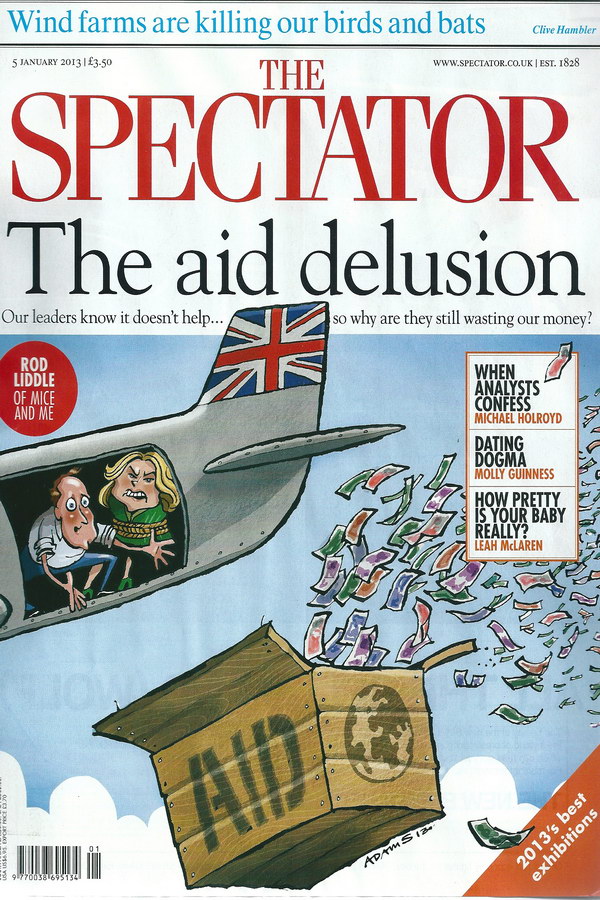
The Spectator Font
BookThe Spectator is a weekly British magazine covering politics, culture, and current affairs. It was founded in 1828 and has a reputation for its conservative-leaning editorial stance.
The current nameplate font used in both print and website versions of The Spectator is likely to be ITC Fenice Std, which was designed by Aldo Novarese in 1980. This is a commercial font, and additional details about it can be found here.